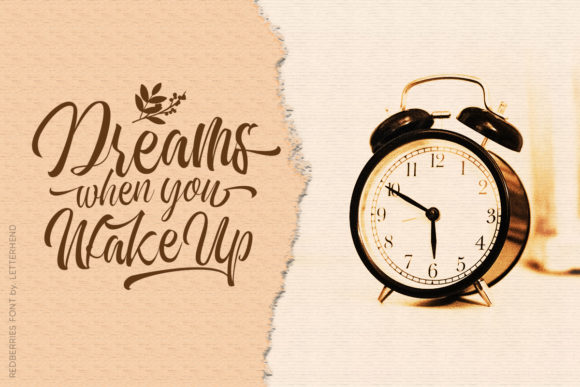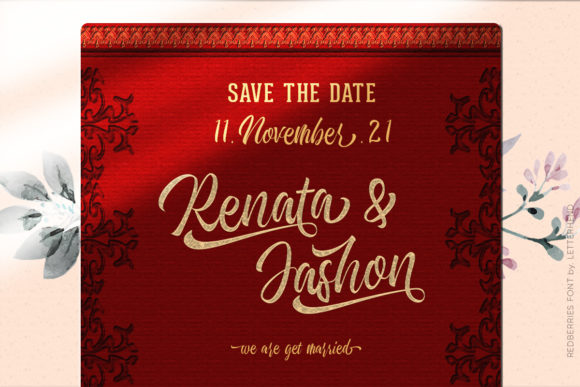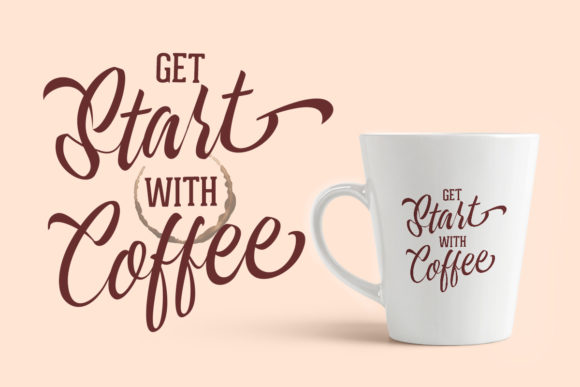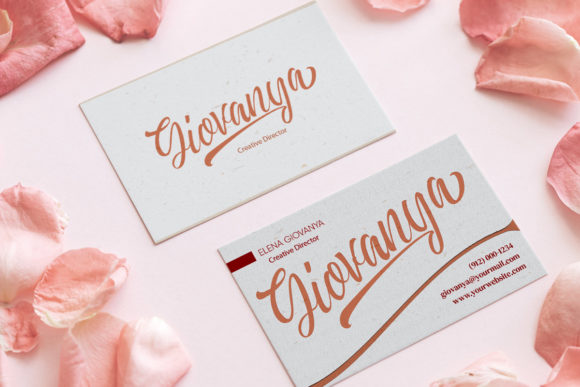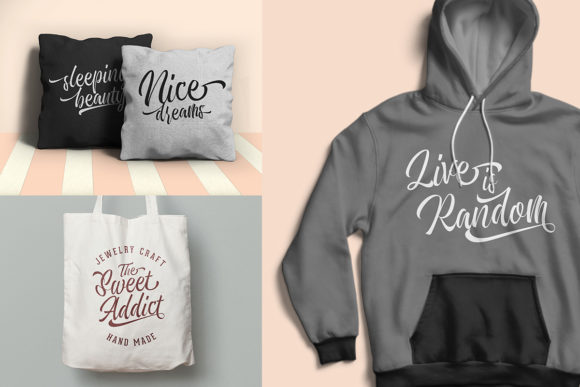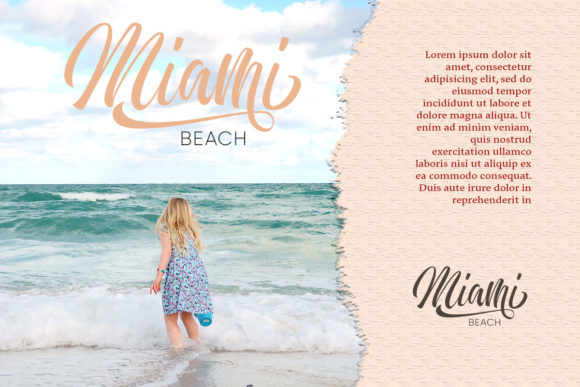
Introduction to Redberries Font
Redberries is an incredibly distinct, delicate and timeless handwritten font.
Key Features of Redberries Font
Why Choose Redberries Font?